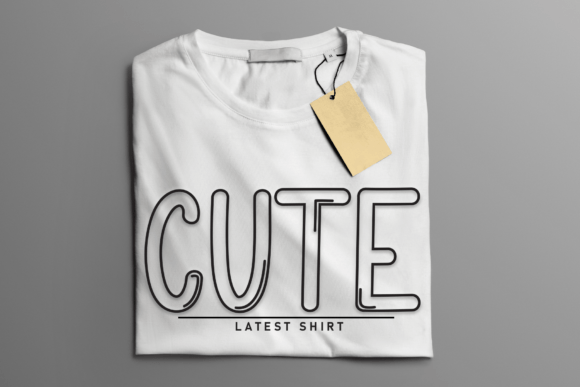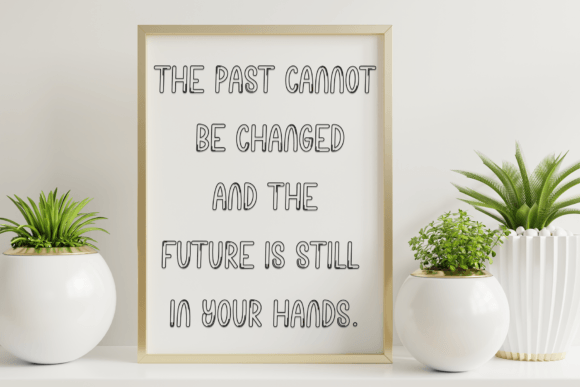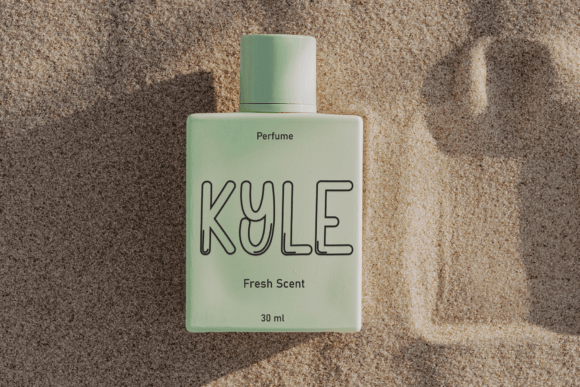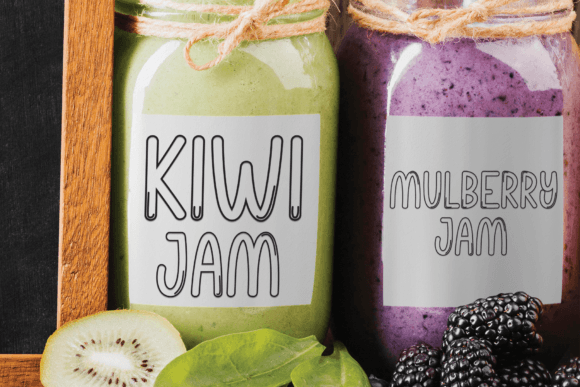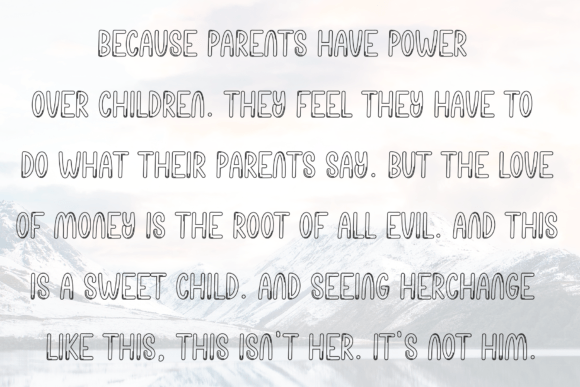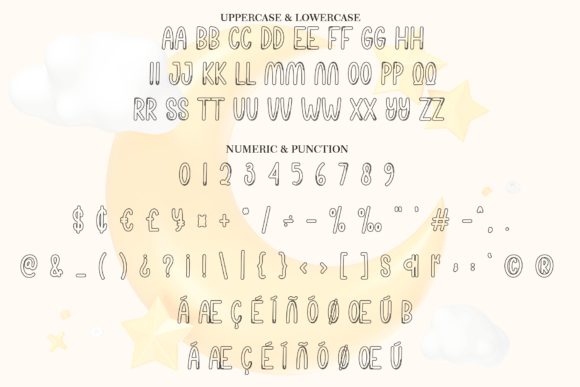
The Sweet Charm of Baby Moon Font: A Designer’s Delight
I still remember the time I was working on a wedding invitation project, and my client asked me to create a custom design that exuded warmth and friendliness. I scoured through my font library, but nothing seemed to fit the bill. That’s when I stumbled upon Baby Moon Font, a sweet and friendly handwritten display font that instantly won my heart. In this article, I’ll share my experience with Baby Moon Font, its features, and how to make the most of it in your designs.
A Personal Review: What I Love About Baby Moon Font
Baby Moon Font is a beautiful, handwritten display font that’s perfect for adding a touch of whimsy to your designs. Here are some things I love about it:
- ✨ Sweet and Friendly Vibe: Baby Moon Font has a warm, inviting feel that’s perfect for wedding invitations, birthday cards, and other celebratory designs.
- ✅ Elegant yet Playful: The font strikes a great balance between elegance and playfulness, making it suitable for a wide range of design projects.
- 💕 Highly Readable: Despite its whimsical nature, Baby Moon Font is highly readable, even in smaller sizes.
While Baby Moon Font is an excellent choice for many design projects, there are a few quirks to keep in mind:
- 🤔 Limited Use in Body Text: Due to its display nature, Baby Moon Font might not be the best choice for body text or lengthy paragraphs.
- ⚠️ Occasional Kerning Issues: As with any font, you might encounter occasional kerning issues, especially when using it in combination with other fonts.
The Backstory Behind Baby Moon Font
Baby Moon Font was designed with love and care by a talented type designer who wanted to create a font that would bring joy and whimsy to designs. The font’s sweet, friendly vibe is inspired by the magic of childhood and the beauty of handwritten letters.
| What is Baby Moon Font best used for? | Baby Moon Font is perfect for wedding invitations, birthday cards, and other celebratory designs that require a sweet, friendly vibe. |
| Is Baby Moon Font suitable for body text? | No, Baby Moon Font is a display font and might not be the best choice for body text or lengthy paragraphs. |